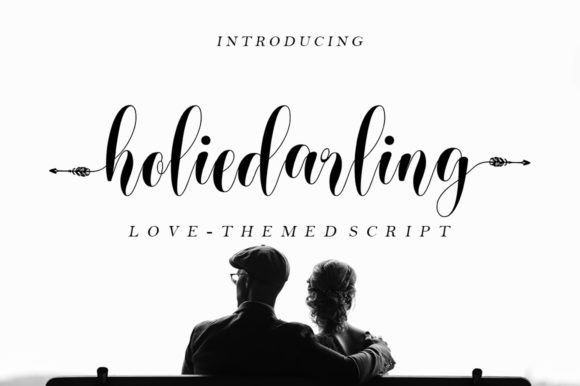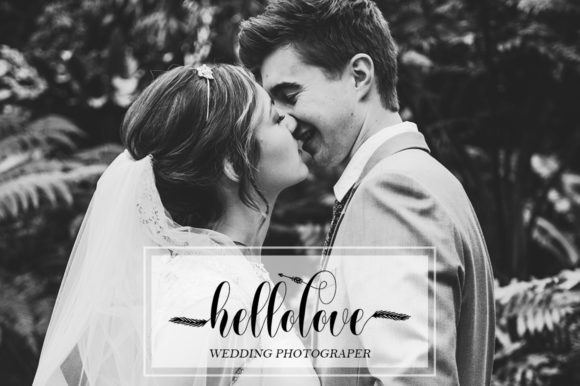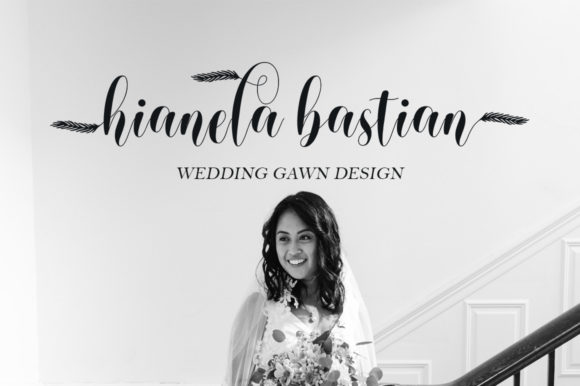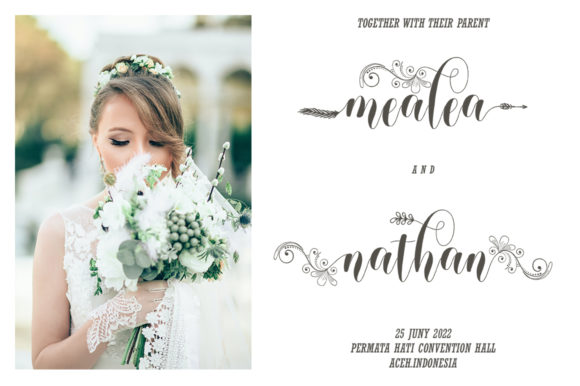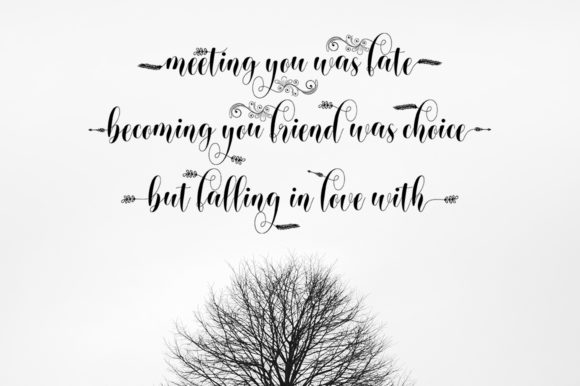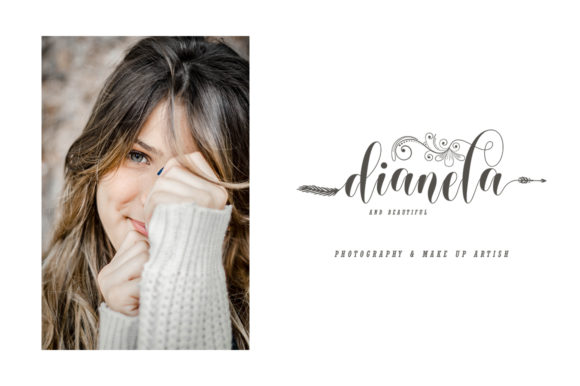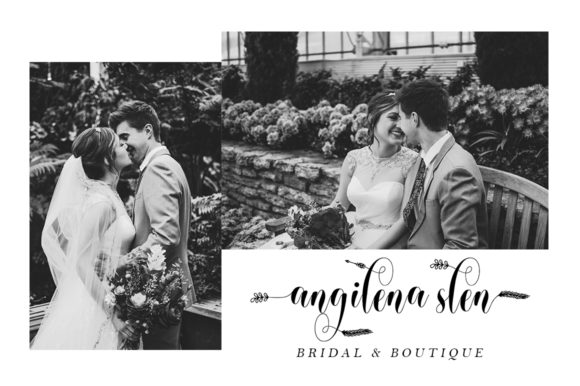
Holiedarling Font
About Holiedarling Font
Holiedarling is an exquisite handwritten font. It looks beautiful on wedding invitations, thank you cards, quotes, greeting cards, logos, business cards and every other design which needs a handwritten touch.